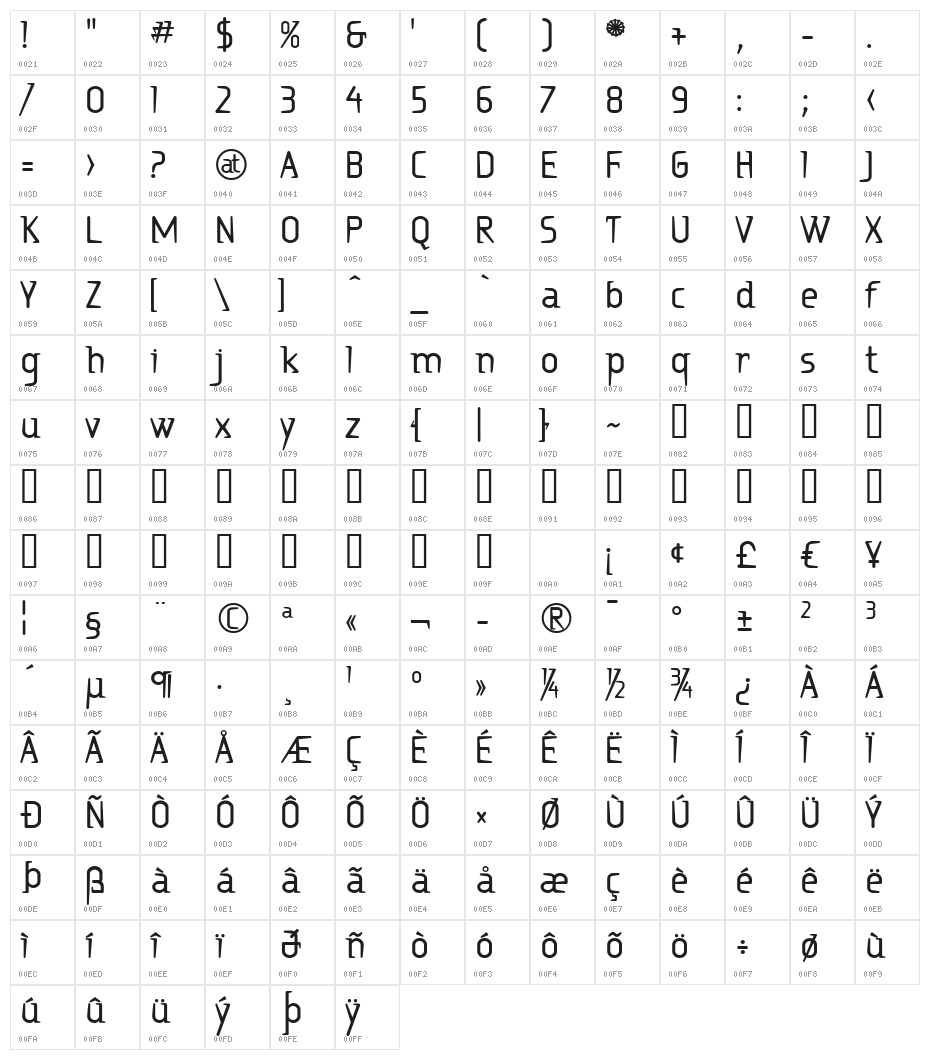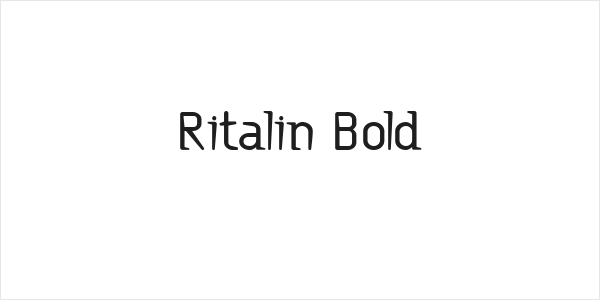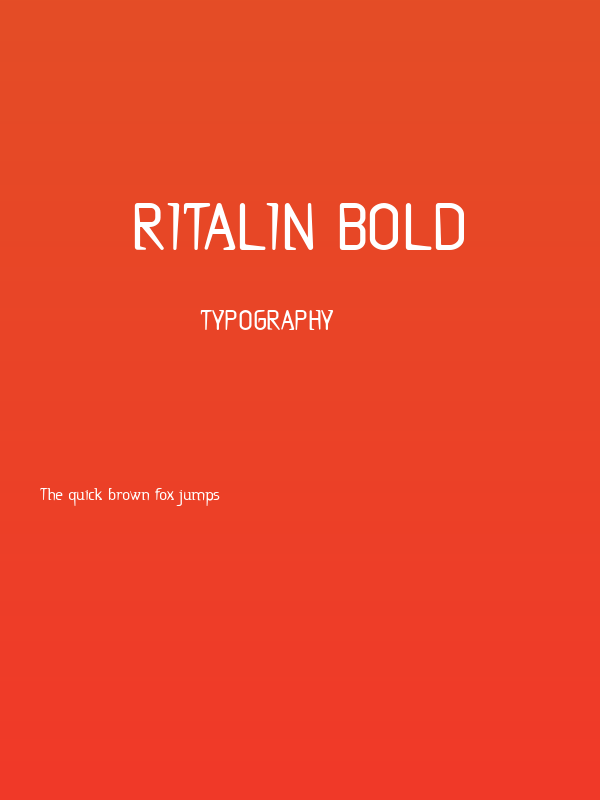
Ritalin Bold Font
Ritalin Bold Description
This font features a modern and slightly quirky design with a unique blend of geometric and organic shapes. The uppercase letters are tall and narrow, with a distinct angularity that gives them a contemporary feel. The lowercase letters maintain a consistent height and width, providing a harmonious balance with the uppercase. The numerals are clean and straightforward, matching the overall style of the alphabet. Special characters are creatively designed, adding a playful touch to the font. The stroke width is consistent, offering a medium contrast that enhances readability while maintaining a stylish appearance.